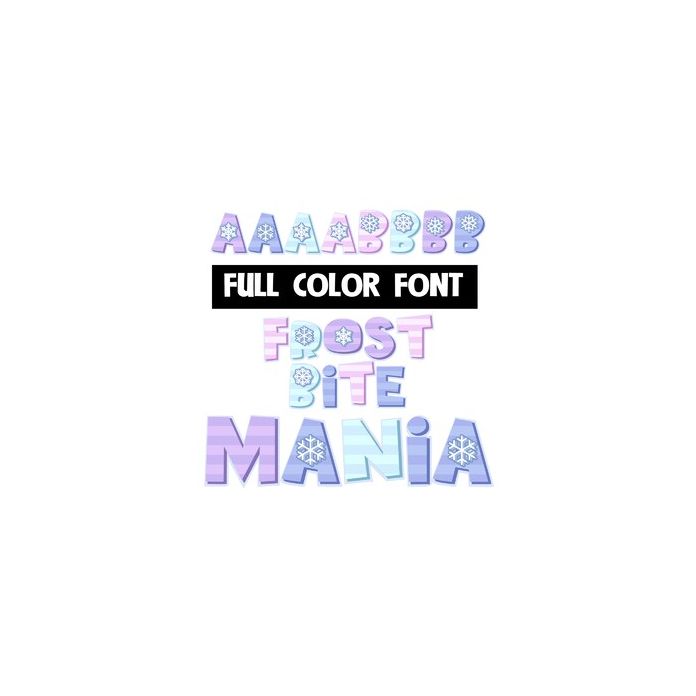
This striped, full-color font features 4 colors of each letter in a pretty winterish color palette. This font works best for titles, displays, posters and more. Please note color fonts will show as black in non compatible programs. This font type is compatible with Silhouette Studio